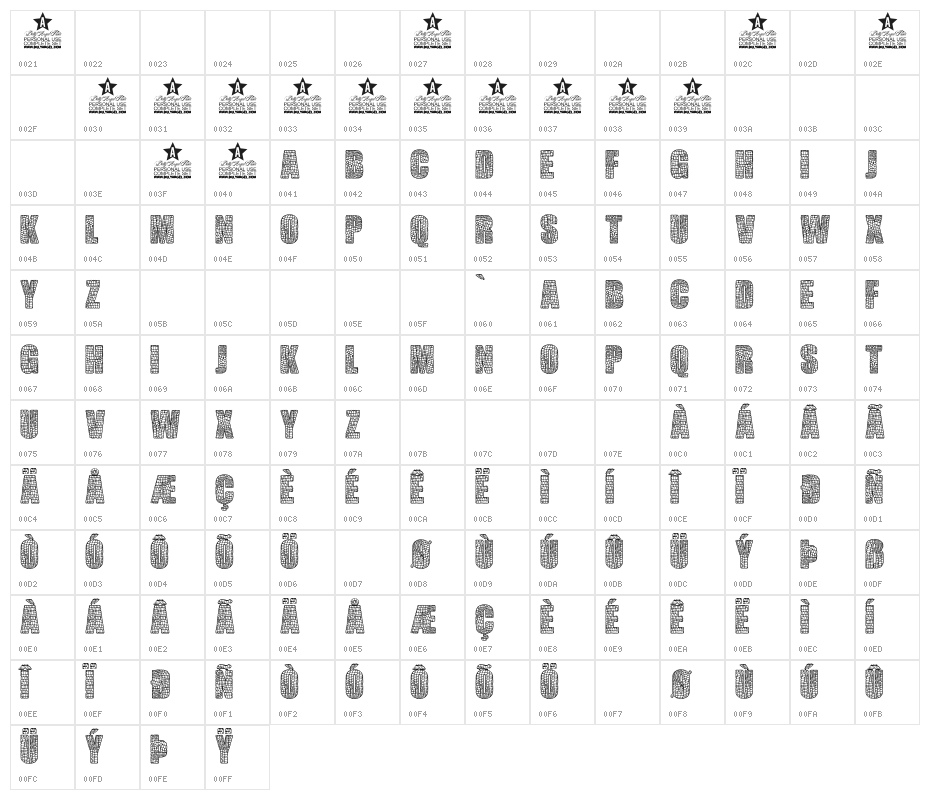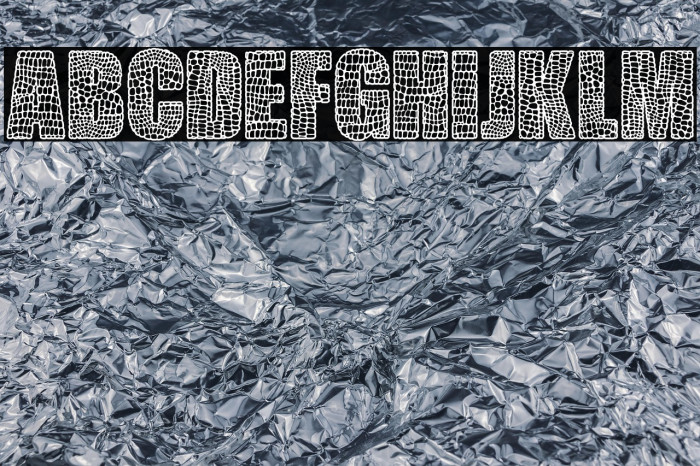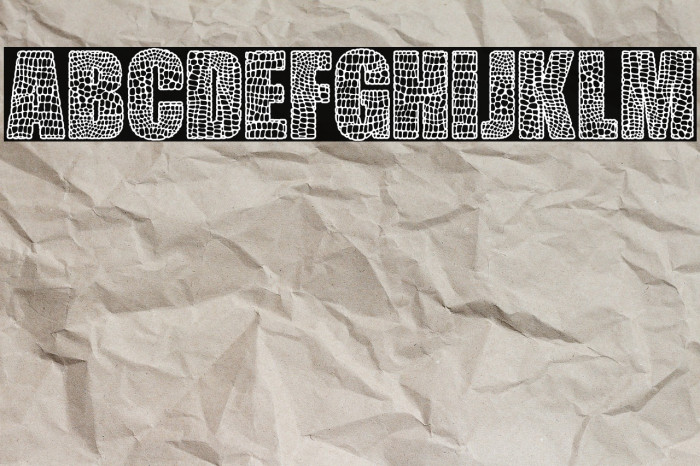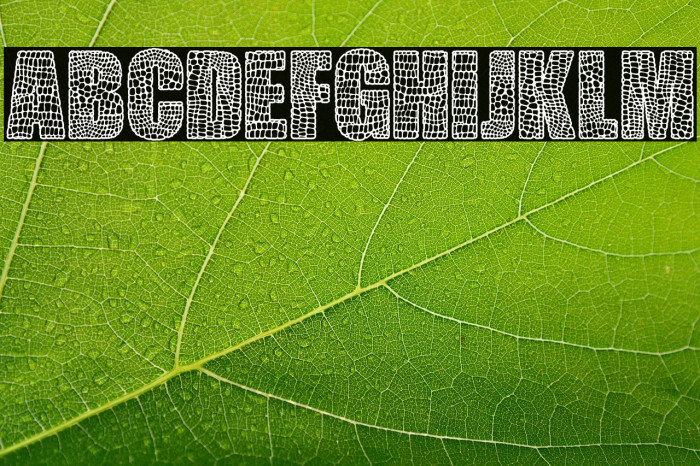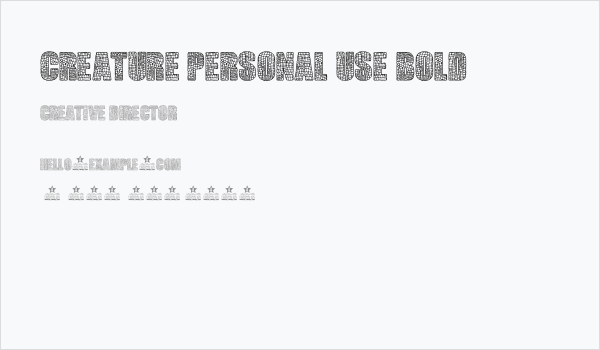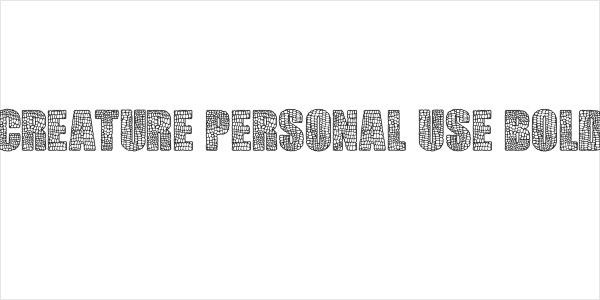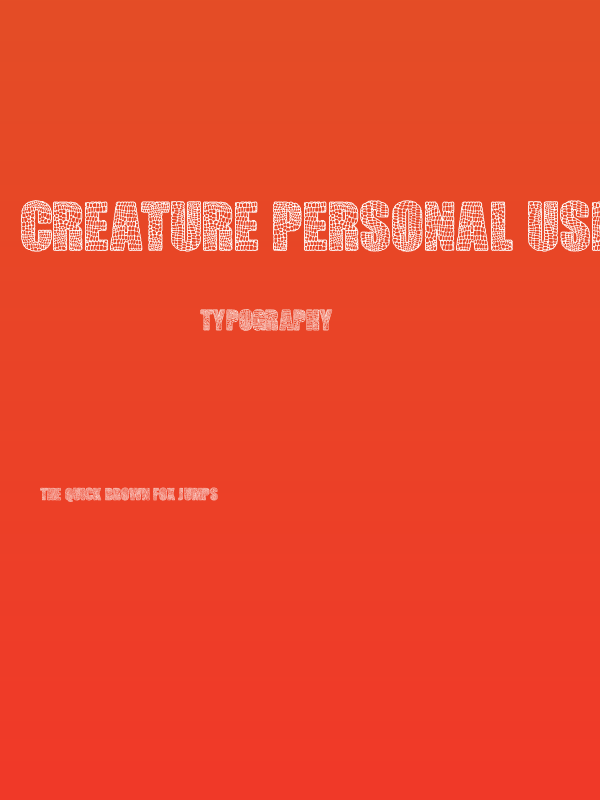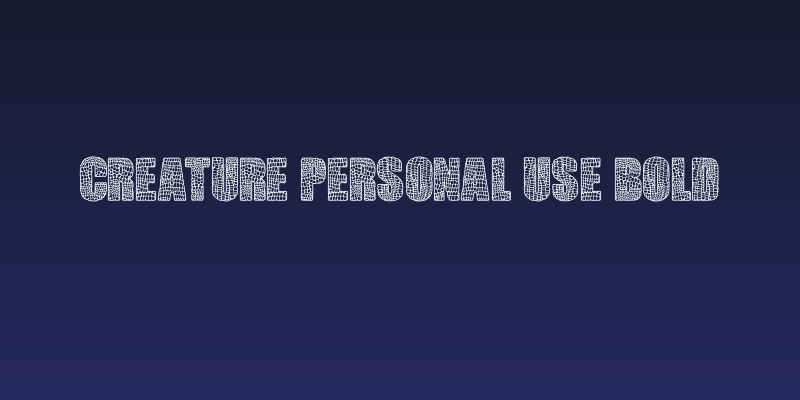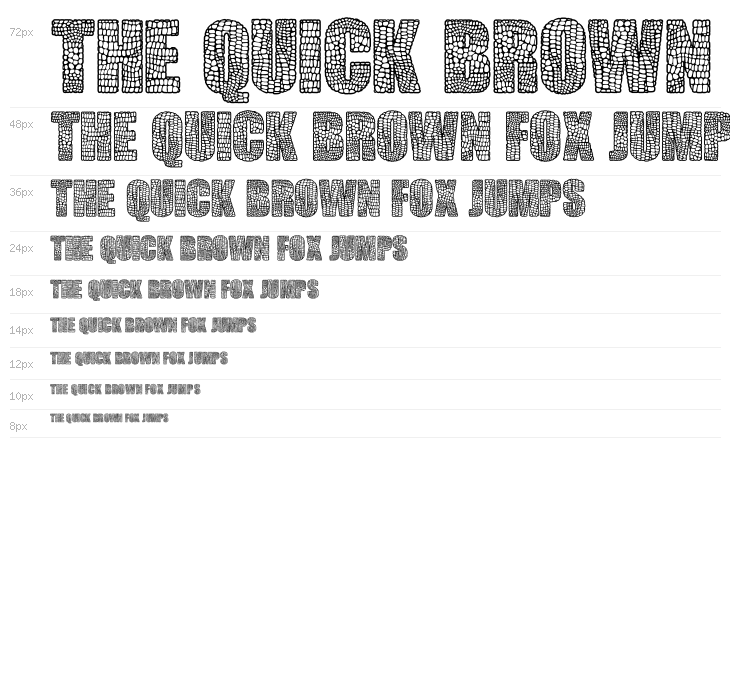
CREATURE PERSONAL USE Bold Font
CREATURE PERSONAL USE Bold Description
This font features a bold, textured design that resembles a mosaic or cobblestone pattern. Each letter is filled with irregular, pebble-like shapes, creating a unique and eye-catching appearance. The uppercase letters are prominent and consistent in size, making them ideal for standout text. The overall style is decorative and playful, suitable for projects that require a distinctive and artistic touch. The font's intricate detailing and bold presence make it perfect for creative designs that aim to capture attention.
| Proposed Projects | This font is perfect for posters, album covers, event invitations, and any creative project that requires a bold and artistic touch. |